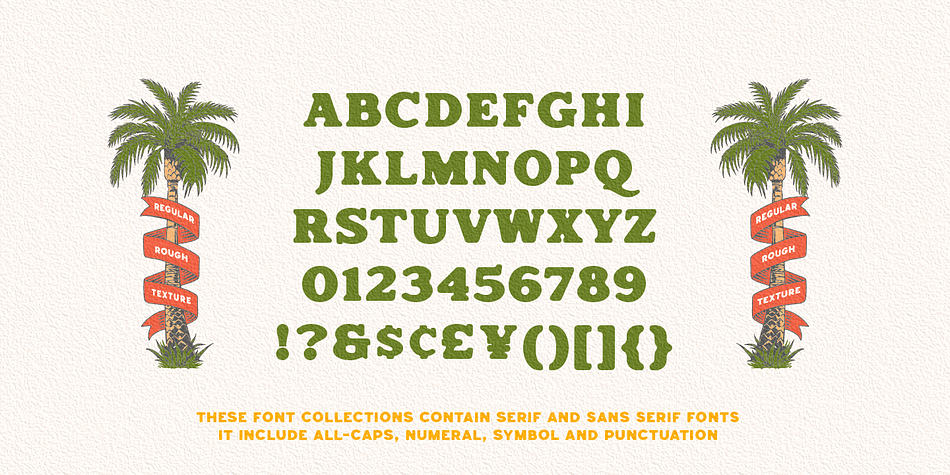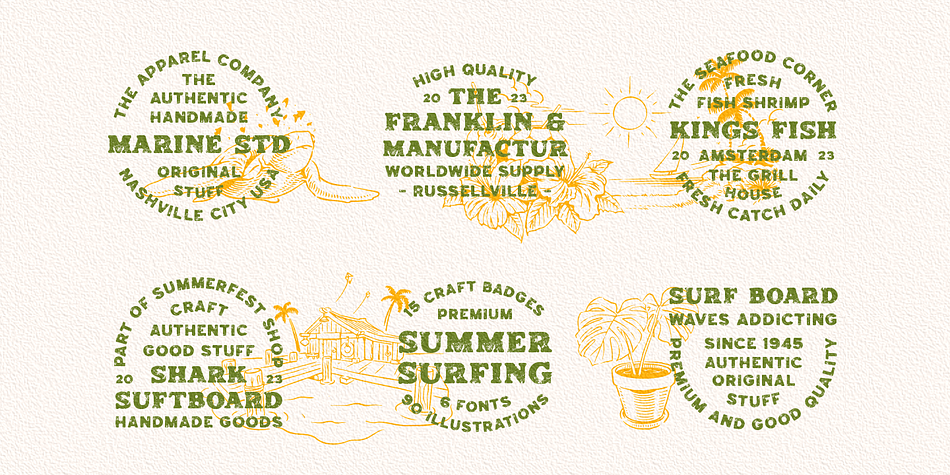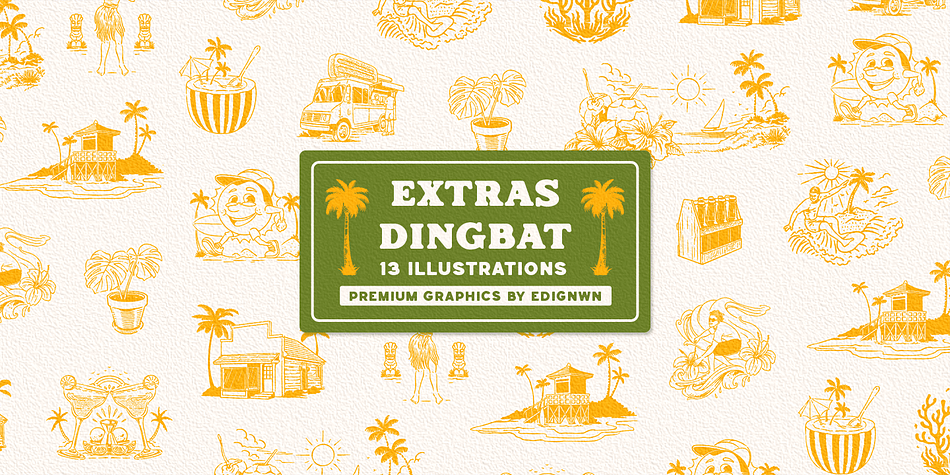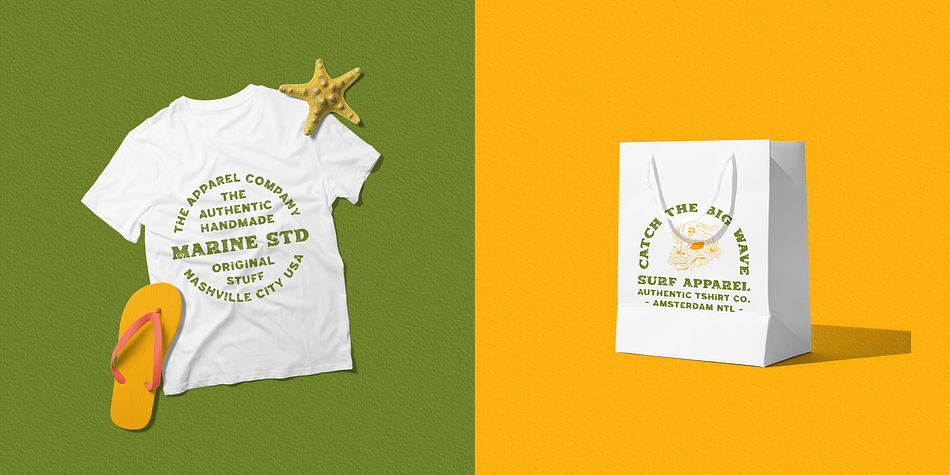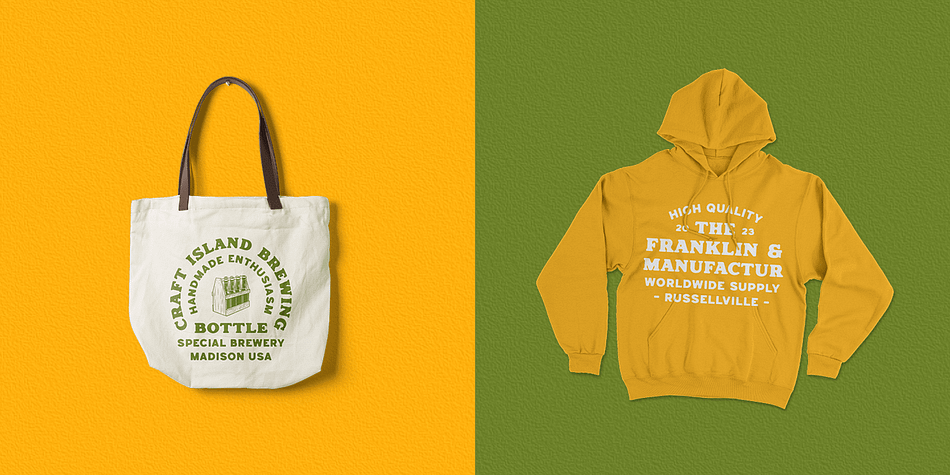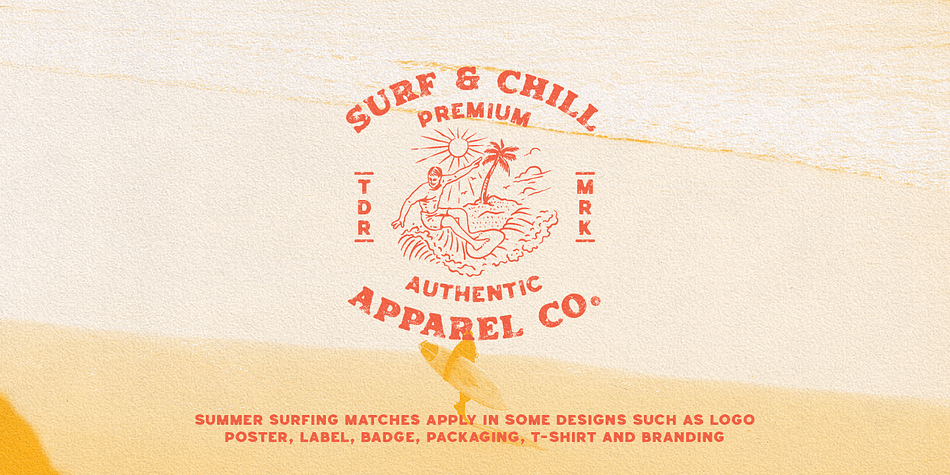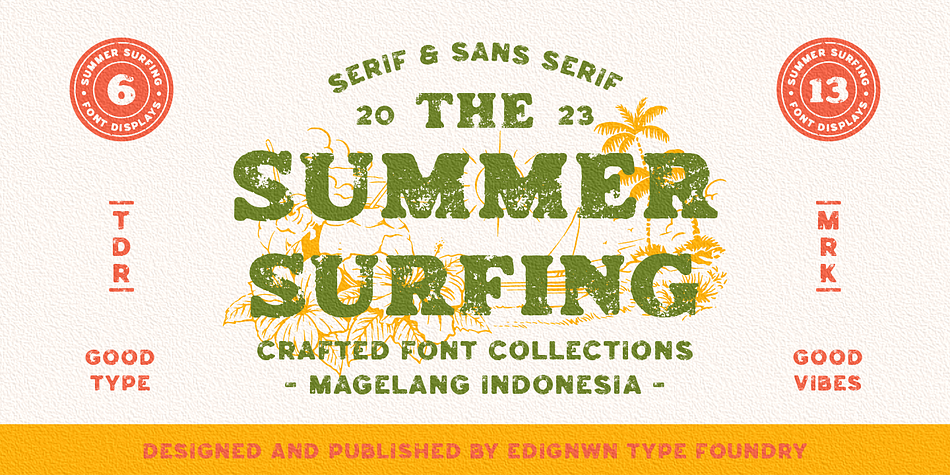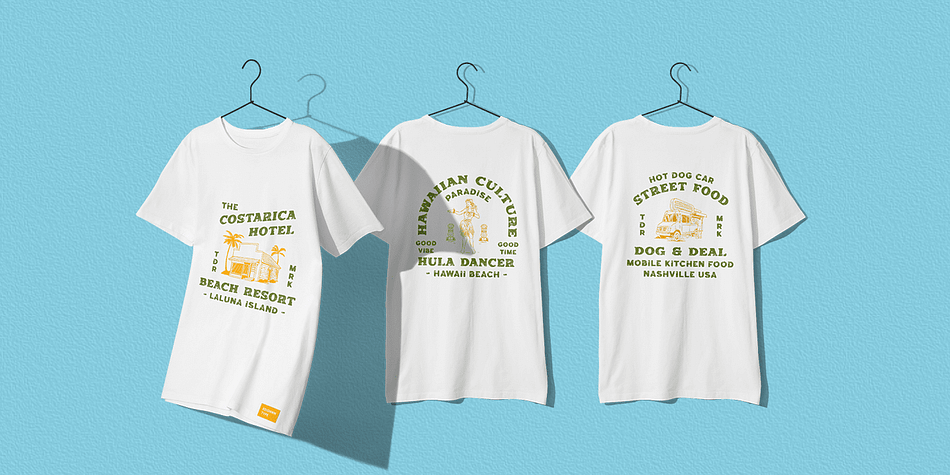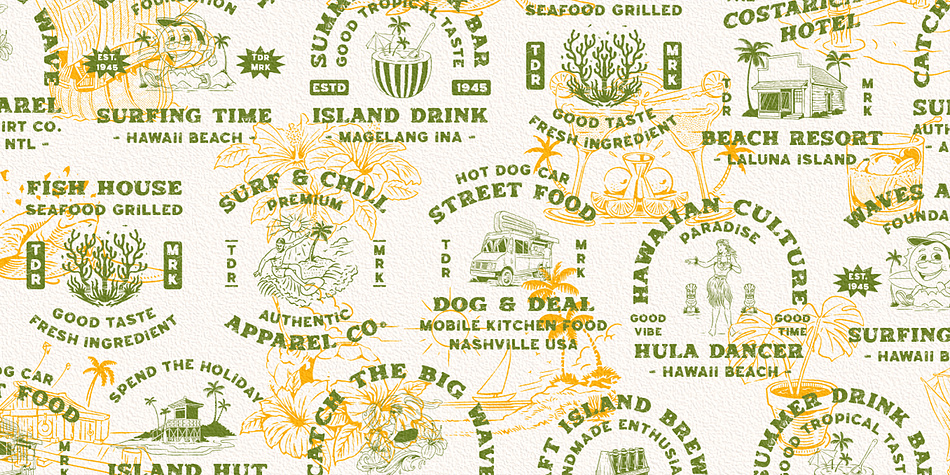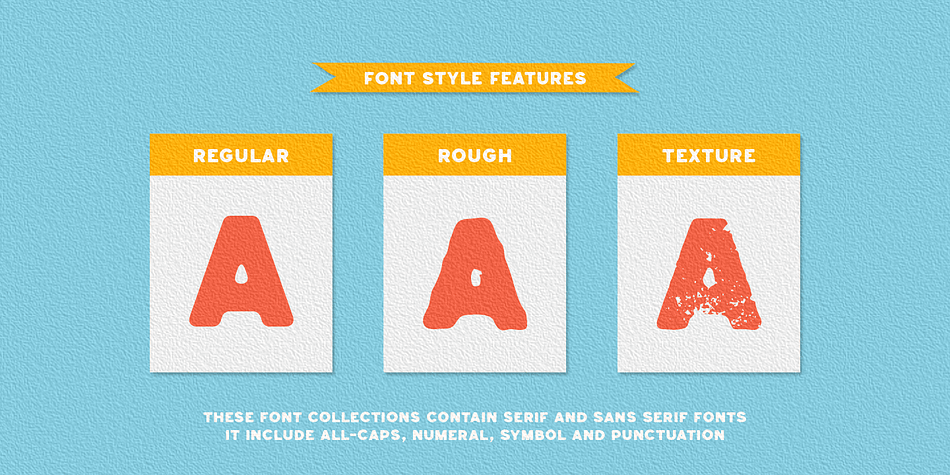
SUMMER SURFING
Designed by Edi Gunawan, Summer Surfing is a multiple classification font family. This typeface has seven styles and was published by Edignwn Type.
Introducing “Summer Surfing”, a dynamic font duo - serif and sans serif designed to bring the energy of the waves to your designs! With three styles to choose from - regular, rough, and texture - you can create a range of effects, from clean and modern to weathered and rustic.
Each style of the font features bold, rounded letters that evoke the movement and curves of the ocean. The regular style is perfect for a clean and simple look, while the rough and texture styles add a touch of craft and rustic.
But that’s not all! Summer Surfing also includes 13 beach-themed illustrations as dingbats, including surfboards, waves, and palm trees, to help you create interesting and captivating designs.
Whether you’re designing posters for a surf competition, creating beach-themed invitations, or crafting graphics for a coastal business, Summer Surfing is the perfect choice to add a touch of summer fun to your designs!
Summer Surfing font features :
- 3 style typefaces (regular, rough and texture)
- All-caps, numeral, symbol and punctuation
Summer Surfing includes :
- 7 fonts (serif, sans serif and dingbat)
- 13 hand-drawn illustrations in dingbat